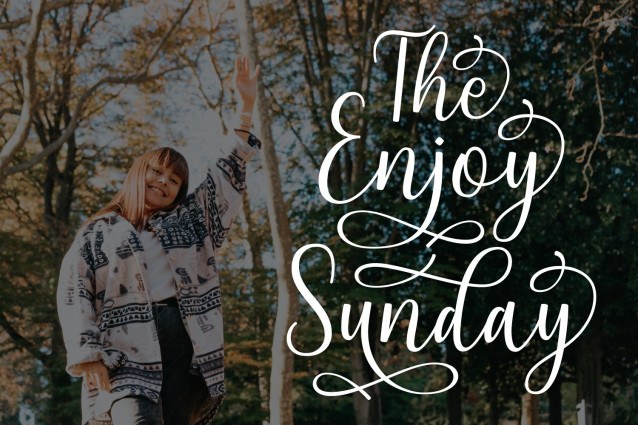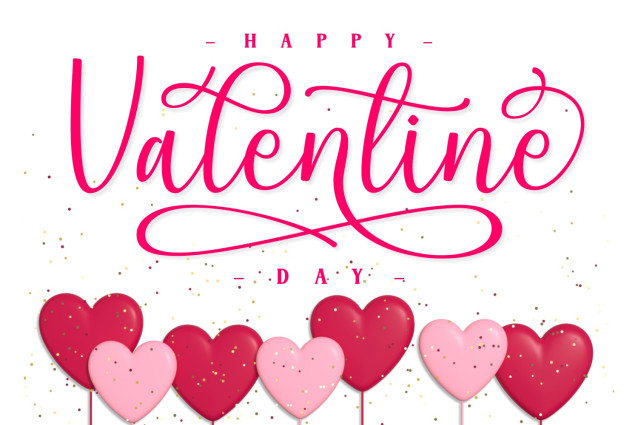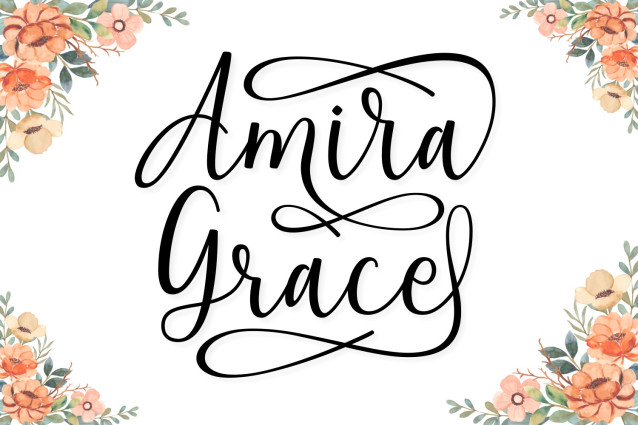
Amira Grace Font
Amira Grace Font is a delicate, thin lettered and flowing script font. Fall for its ravishing style and use it to create gorgeous designs. This font is PUA encoded which means you can access all glyphs and swashes with ease!